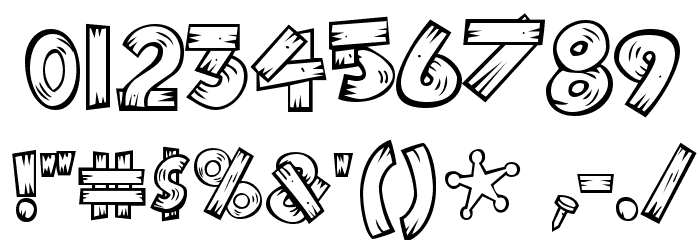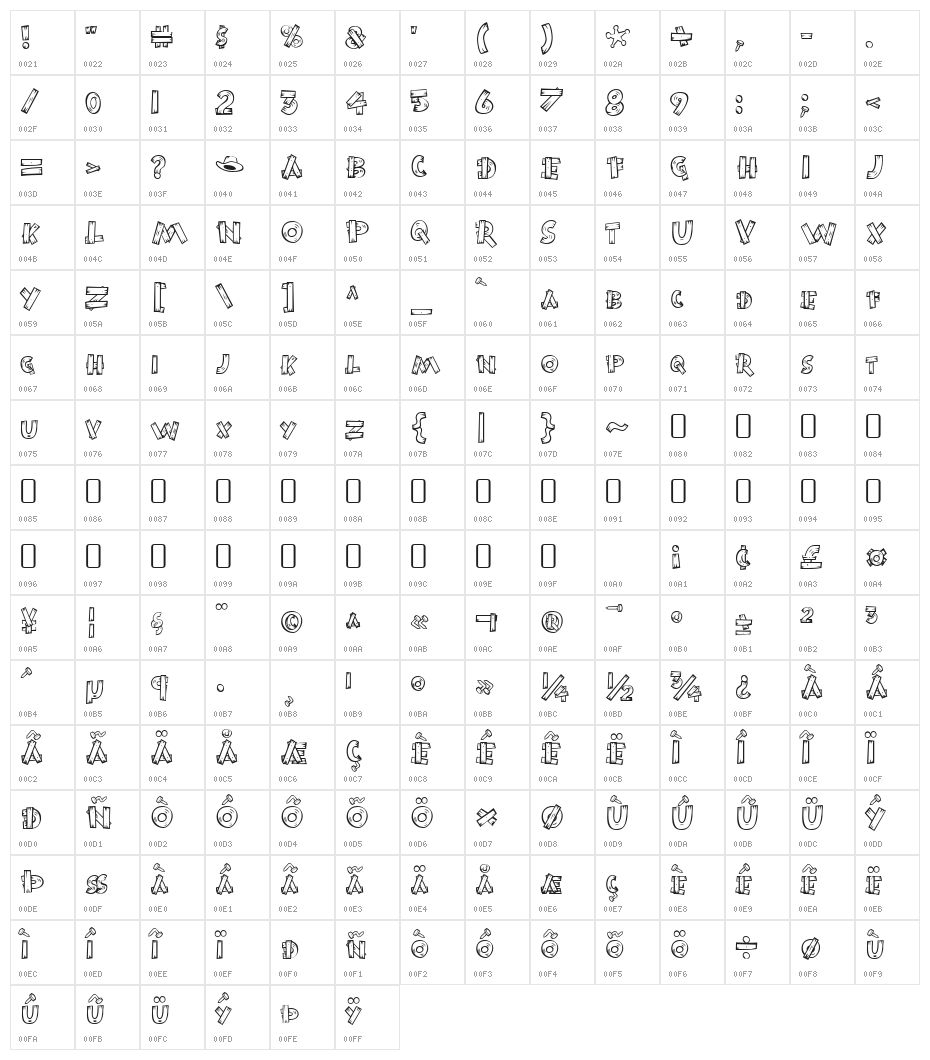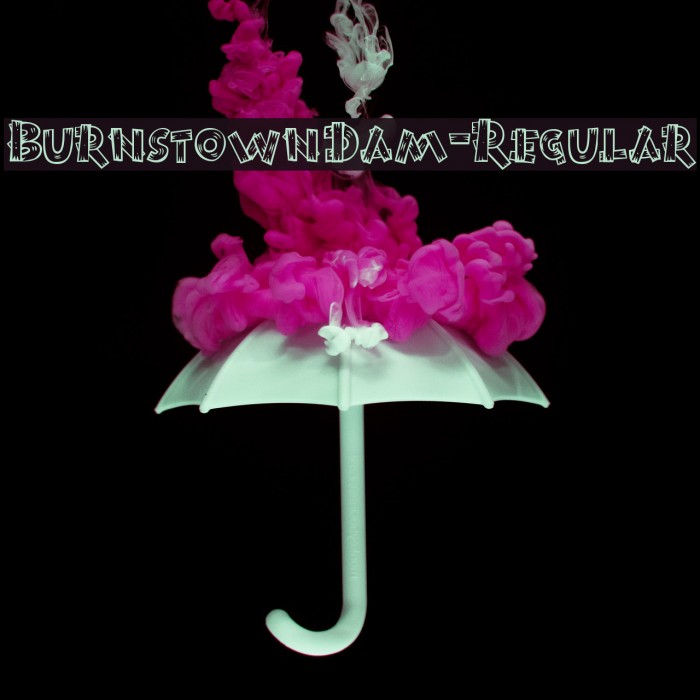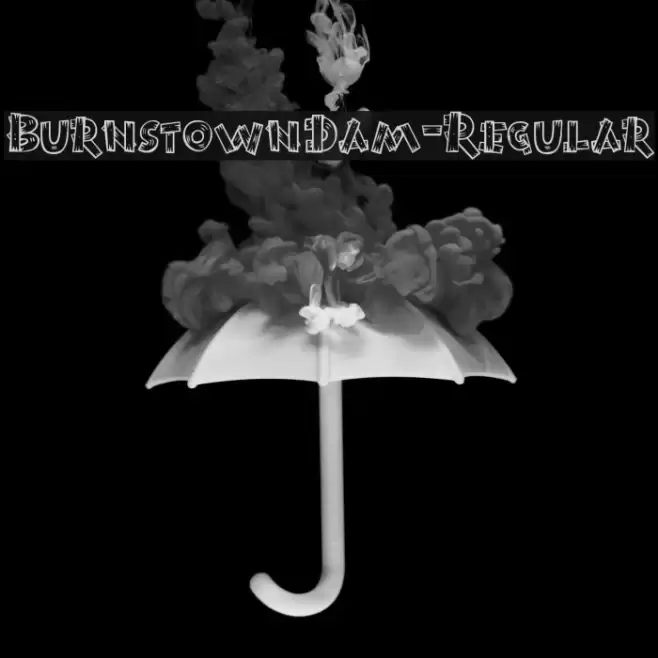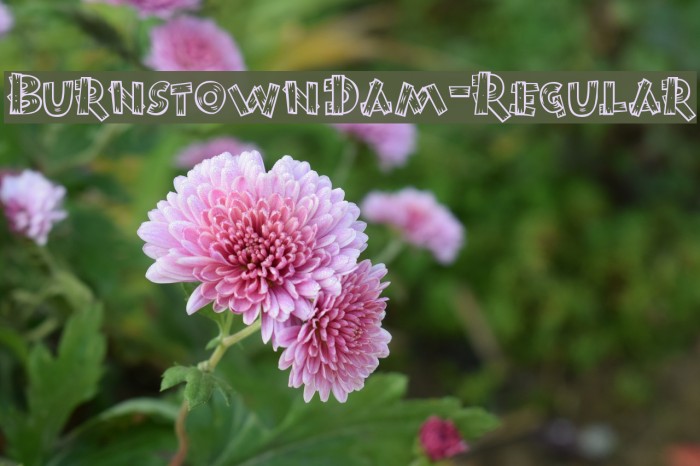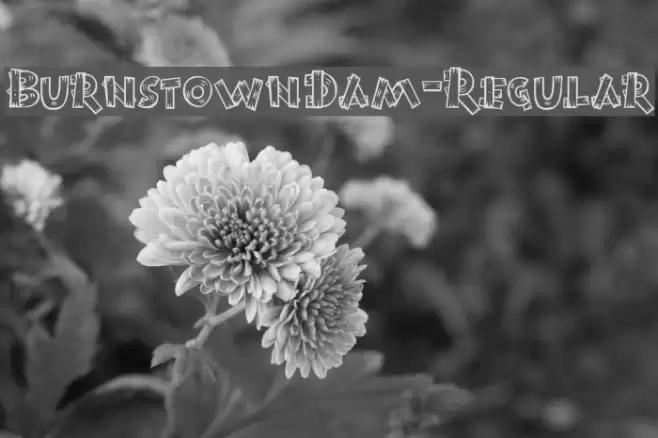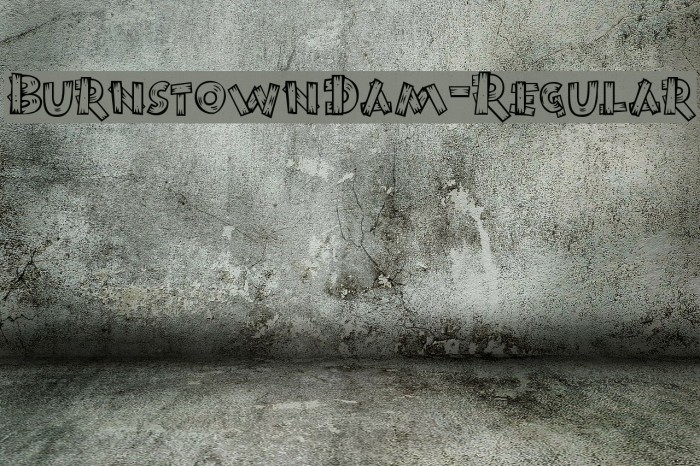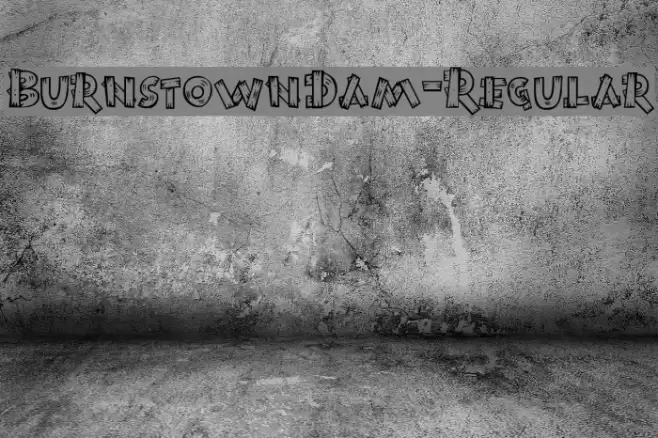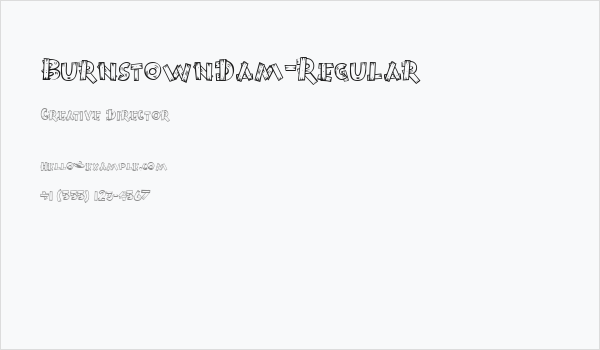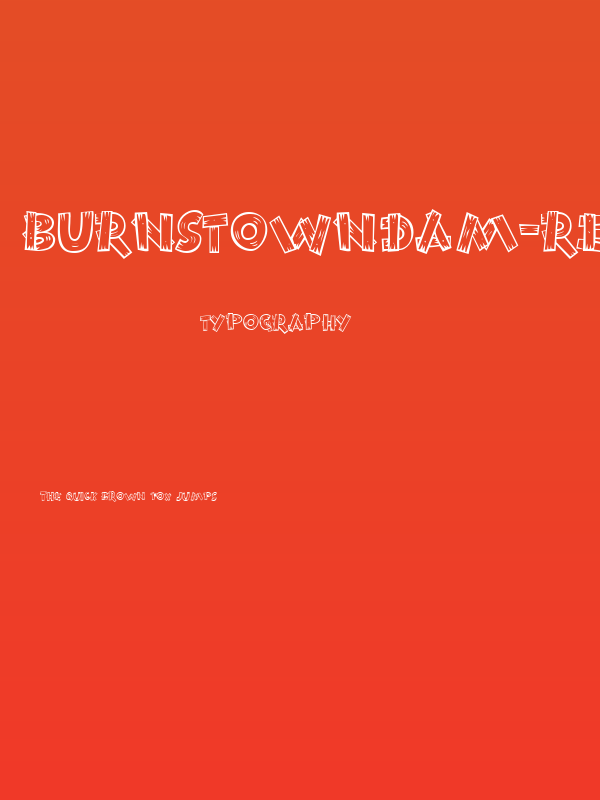
BurnstownDam-Regular Font
BurnstownDam-Regular Description
This font features a playful and bold design with a hand-drawn, cartoonish style. Each character is outlined with a thick black border, giving it a distinct and eye-catching appearance. The letters are filled with a woodgrain texture, adding a rustic and whimsical touch. The overall look is dynamic and energetic, making it suitable for creative and informal projects. The characters are slightly irregular, enhancing the hand-crafted feel. This font is perfect for designs that require a fun and lively aesthetic.
| Proposed Projects | Ideal for children's books, comic strips, posters, and playful branding materials. |